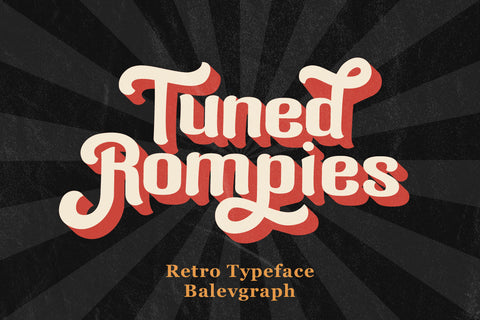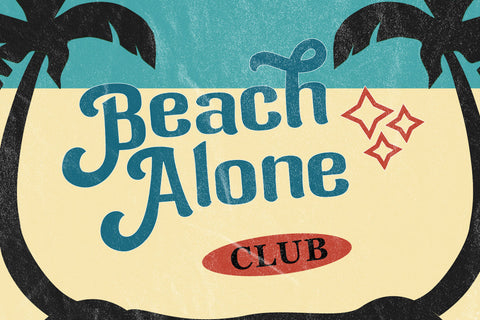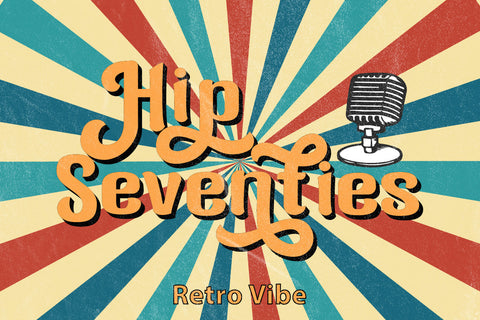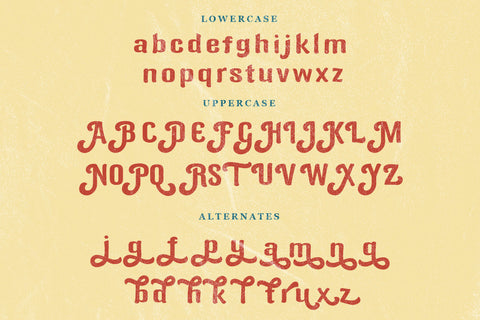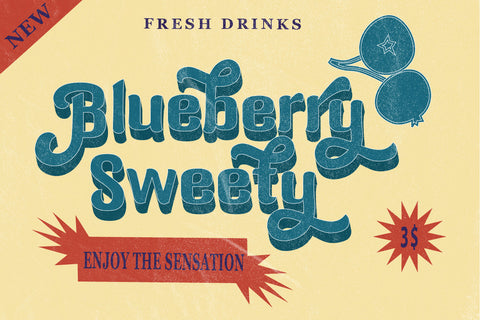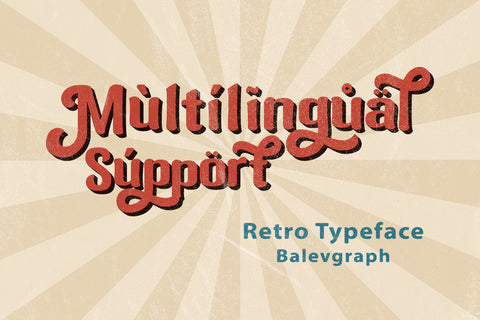
Tuned Rompies A Retro & Bold Display Font
Tuned Rompies is a retro and bold display font. This font reads as strong, confident, and dynamic and can add tons of nostalgic character to your designs.
– Uppercase, Lowercase, Numerals & Punctuations
– Alternates
– Multilingual support